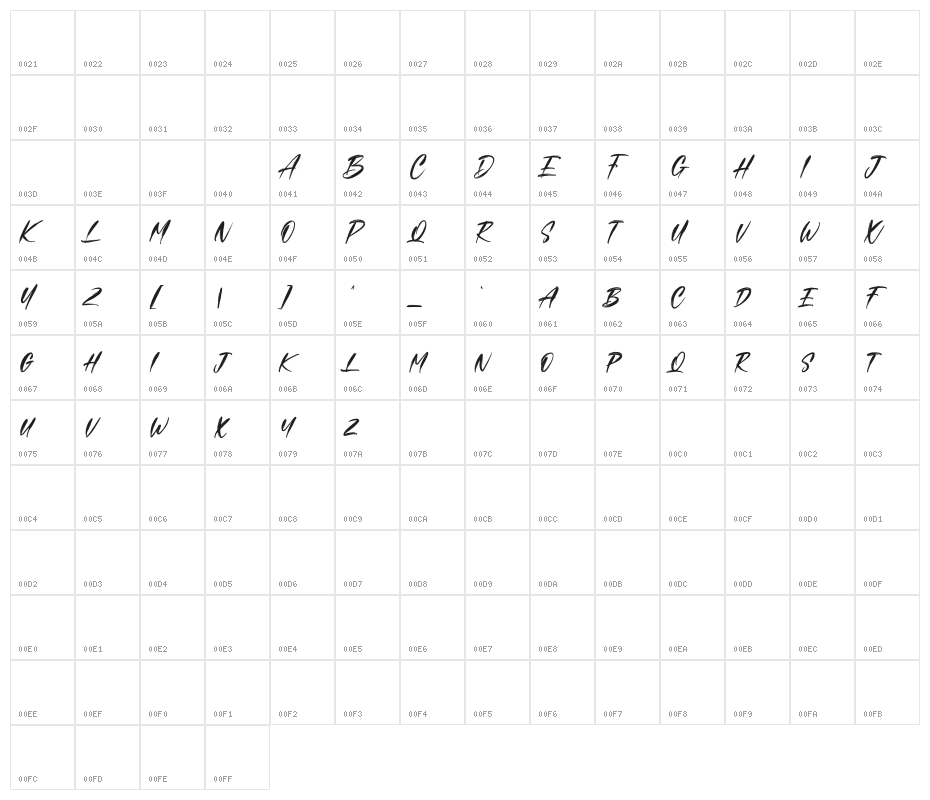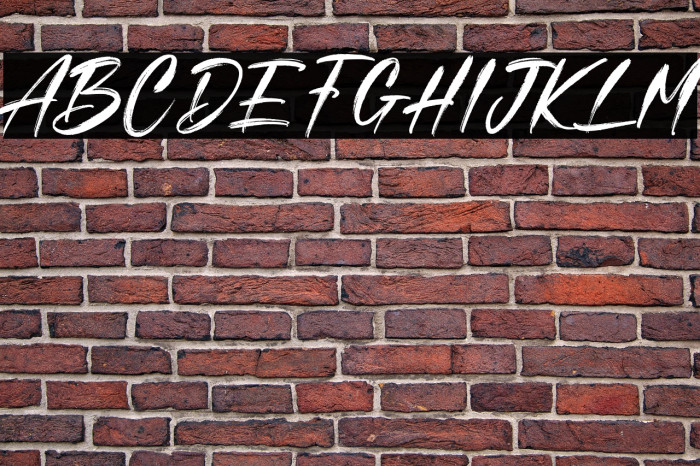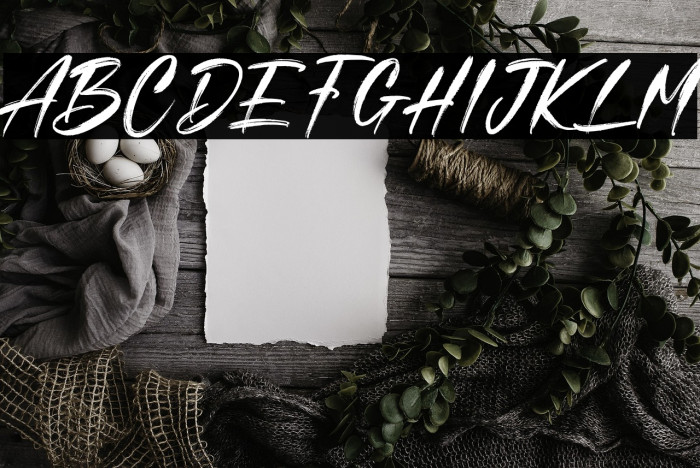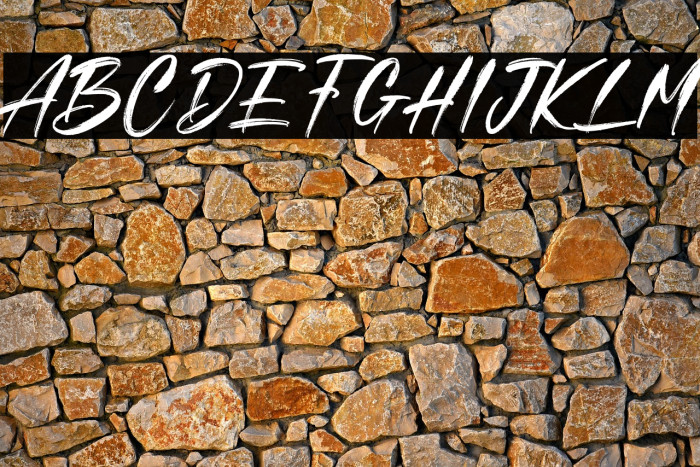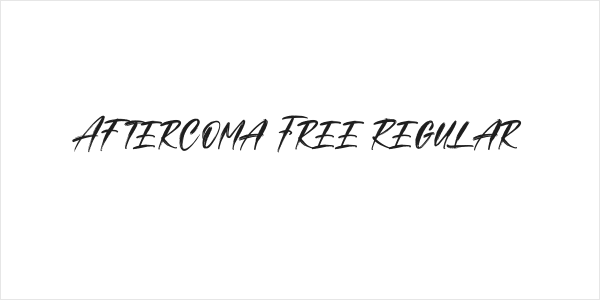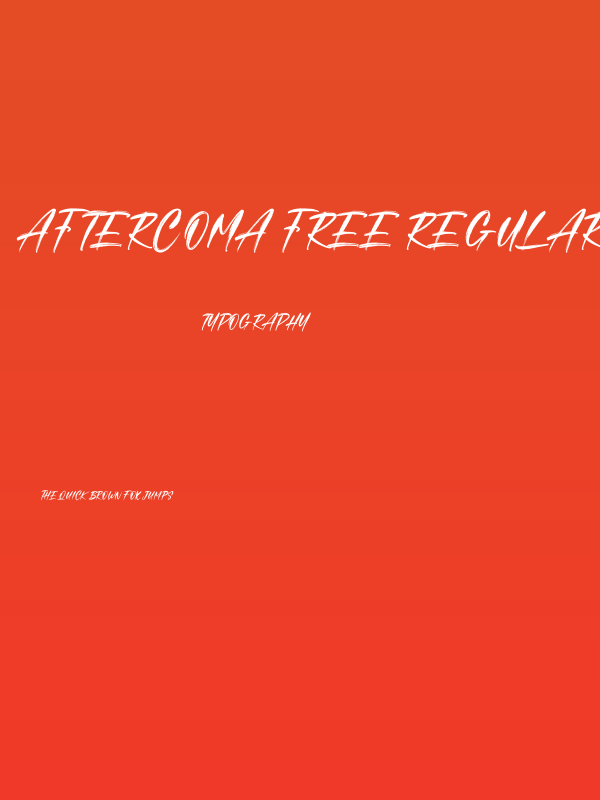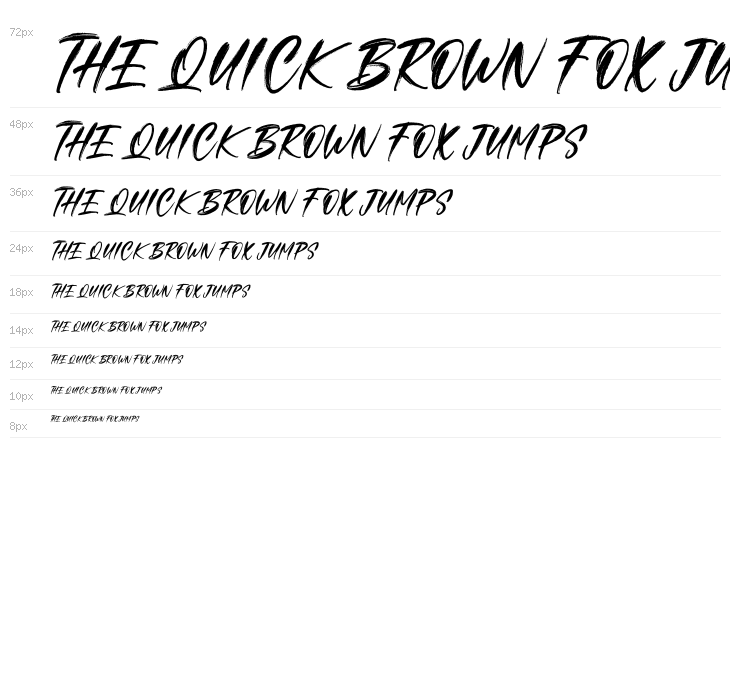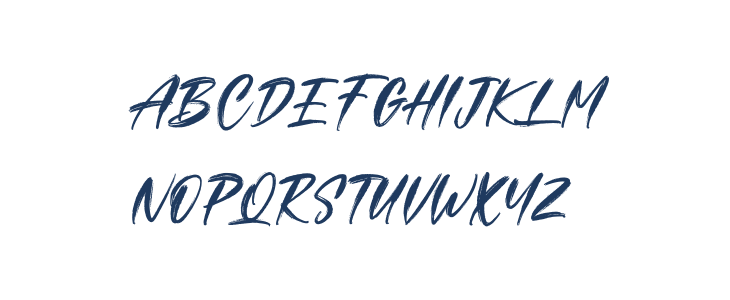
Aftercoma Free Regular Font
Aftercoma Free Regular Description
This font features a dynamic and expressive handwritten style, characterized by bold, sweeping strokes that convey a sense of energy and movement. The letters are slightly slanted, adding to the casual and informal feel of the typeface. The strokes vary in thickness, providing a medium contrast that enhances the visual interest and legibility. The overall appearance is both artistic and modern, making it suitable for creative projects that require a personal touch. The font's design is reminiscent of brush lettering, with each character appearing as if it were crafted with a brush pen, giving it an authentic and organic look.
| Use Case | Logos, Headlines, Posters |
| Proposed Projects | Ideal for branding, invitations, posters, and any design that seeks a personal, artistic touch. |